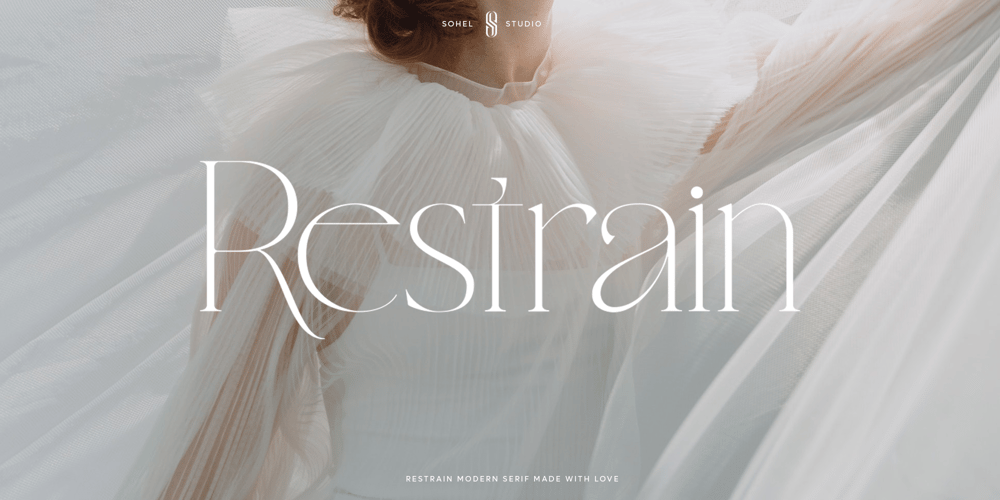
Restrain
Restrain font
Restrain Font Family was designed by Akhmad Husain Rifa’i and published by Sohel Studio. Restrain contains 1 styles and family package options. Restrain is a Modern serif typeface Unique alternate , multilingual support with perfect kerning. its modern and minimal treatment, it makes a great starting point as well as an enhancement for your design. It is perfect for cosmetic brand, fashion promotion , modern advertising design, invitation card, art quote, home decoration , book/cover titles, special events, and much more. etc.Restrain Features: · Uppercase & Lowercase · Alternates & Ligatures · Numerals & Punctuation · Accented characters · Multilingual Support · Unicode PUA EncodedIf you want the SVG version please contact me.While using this product, if you encounter any problem or spot something we may have missed, please don’t hesitate to drop us a message. We’d love to hear your feedbacks in order to further fine-tune our products.